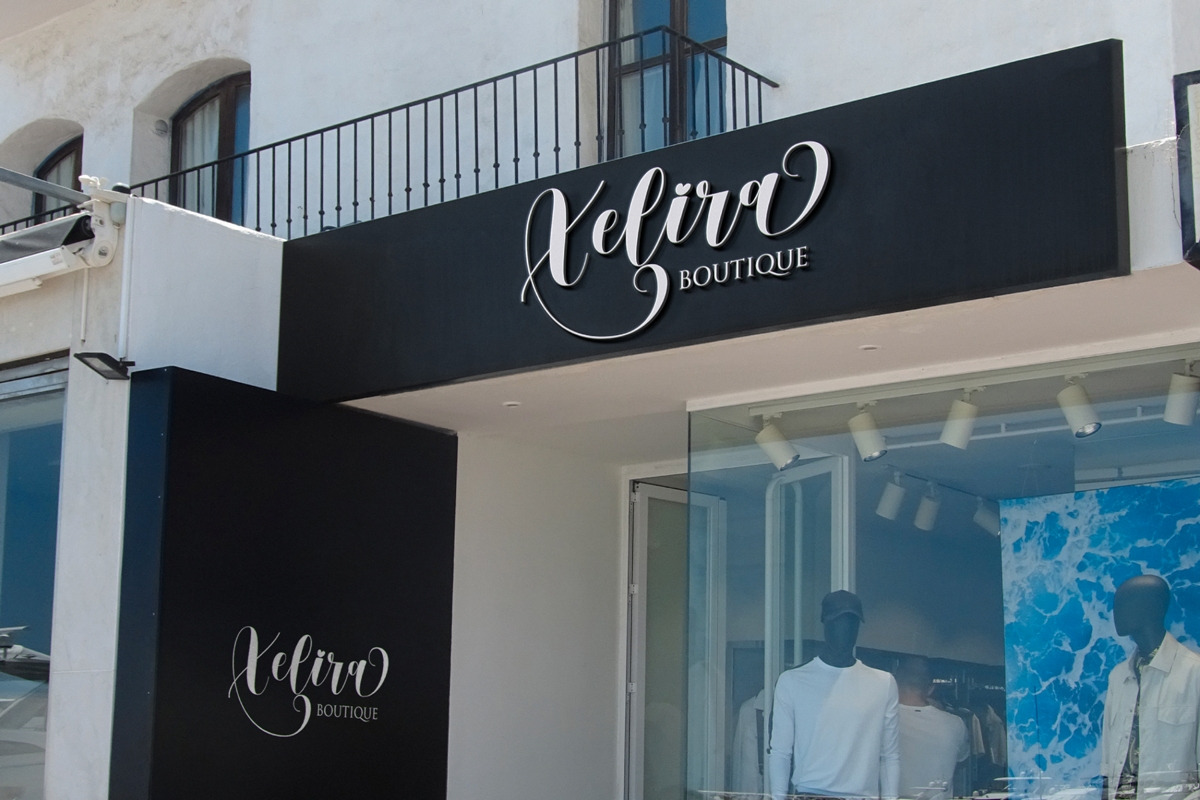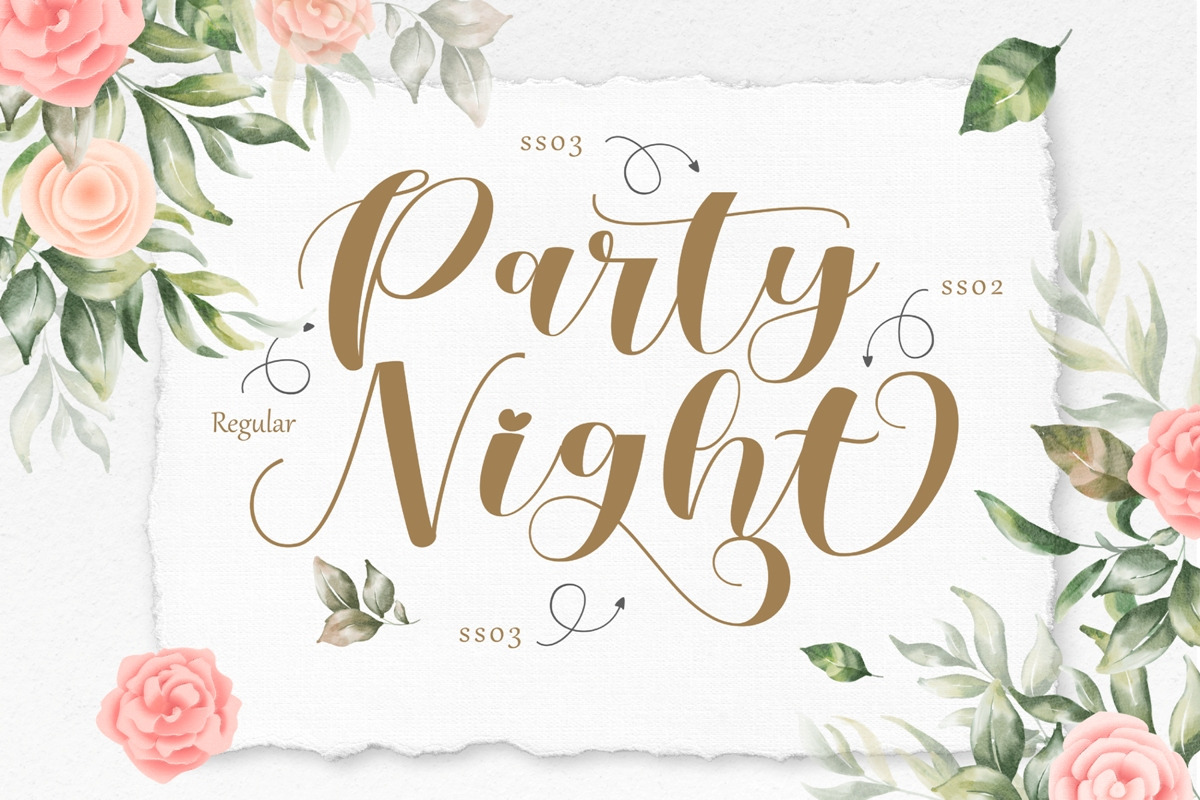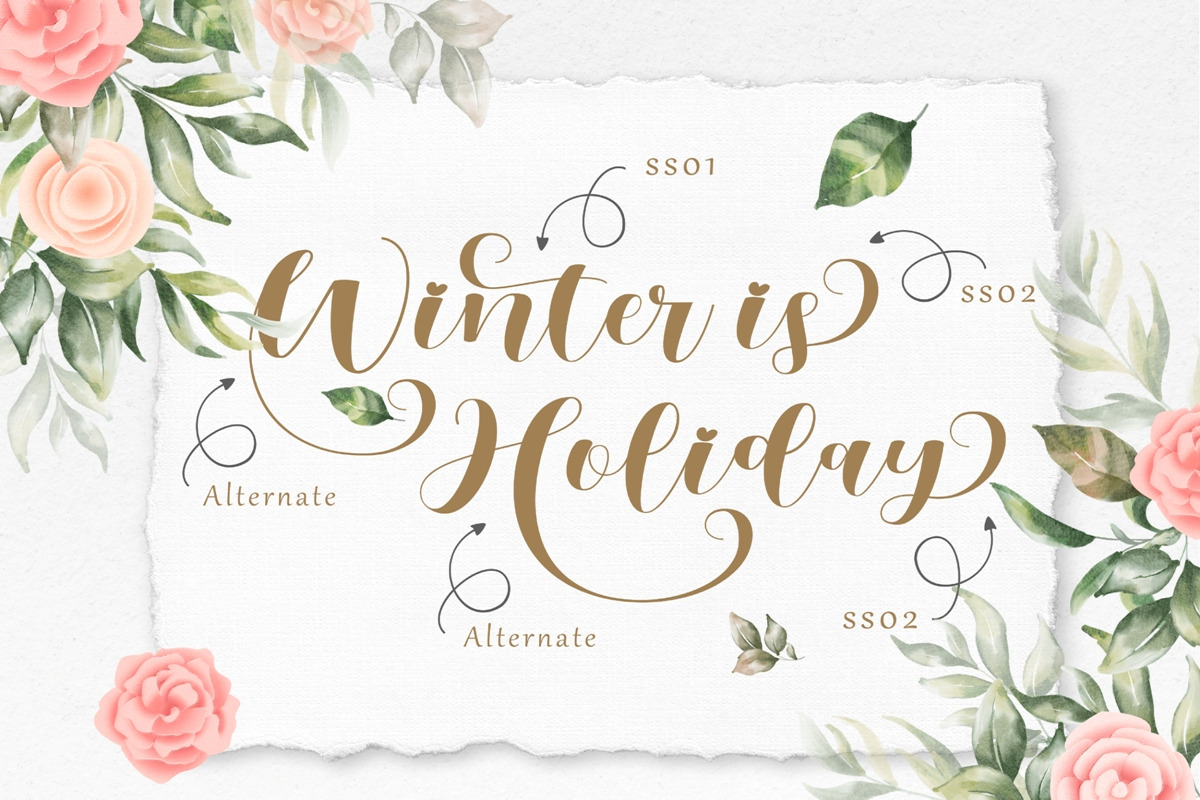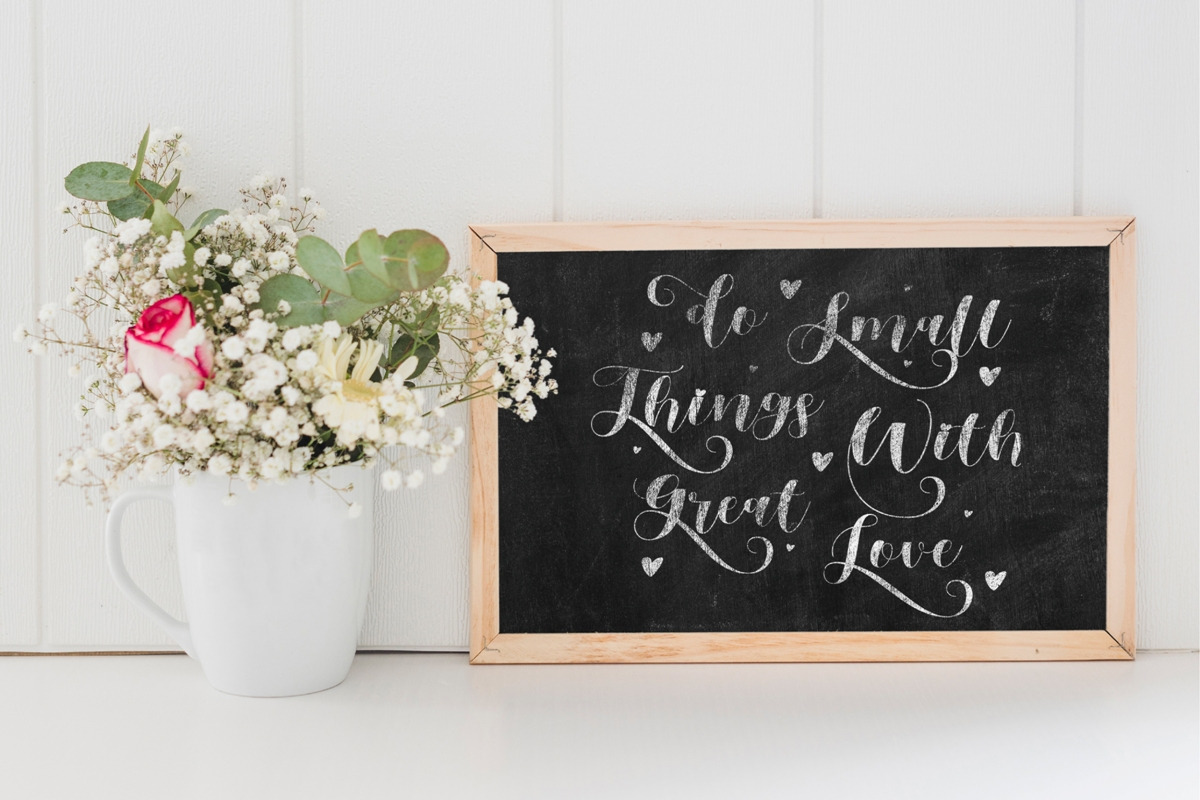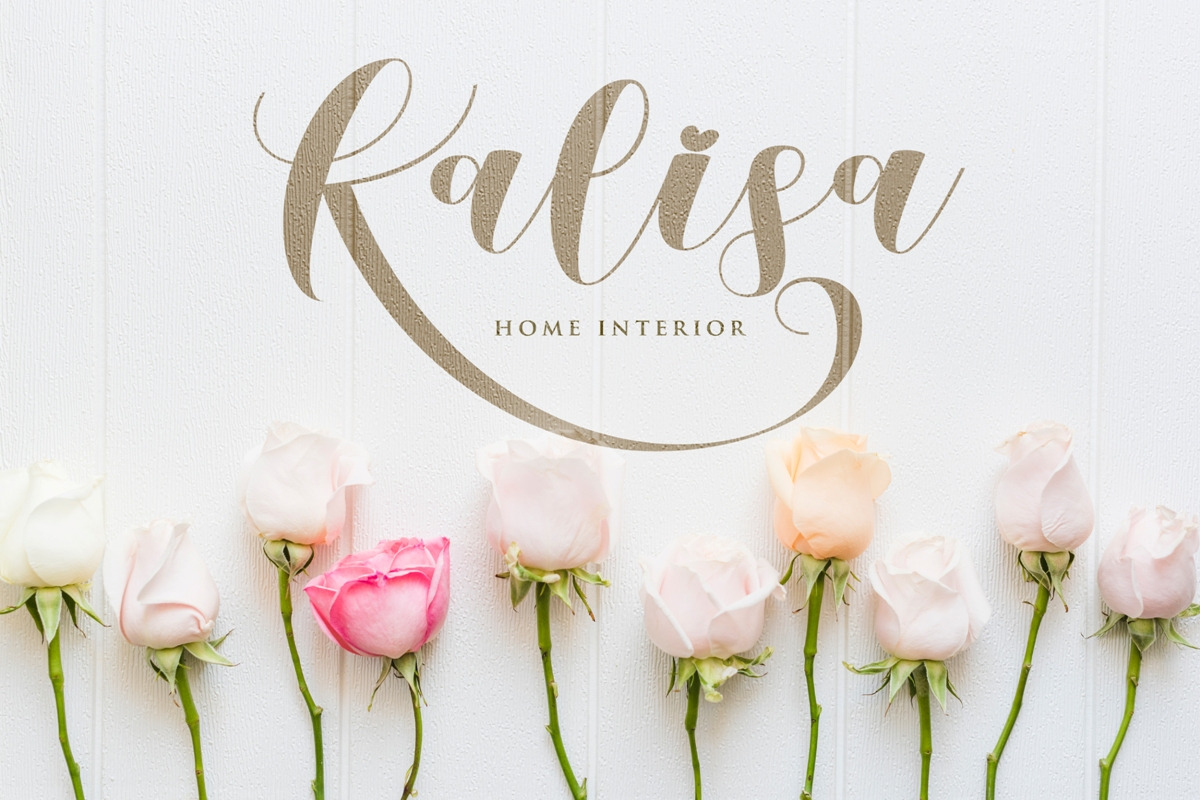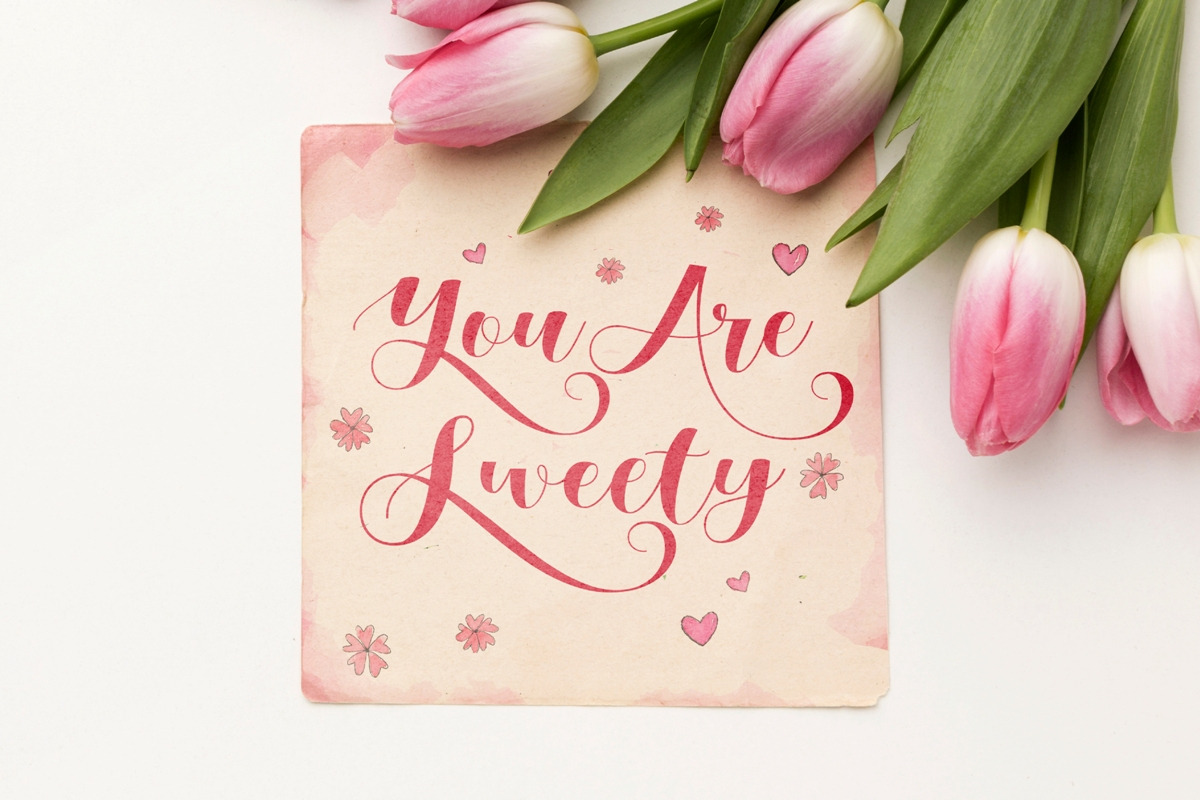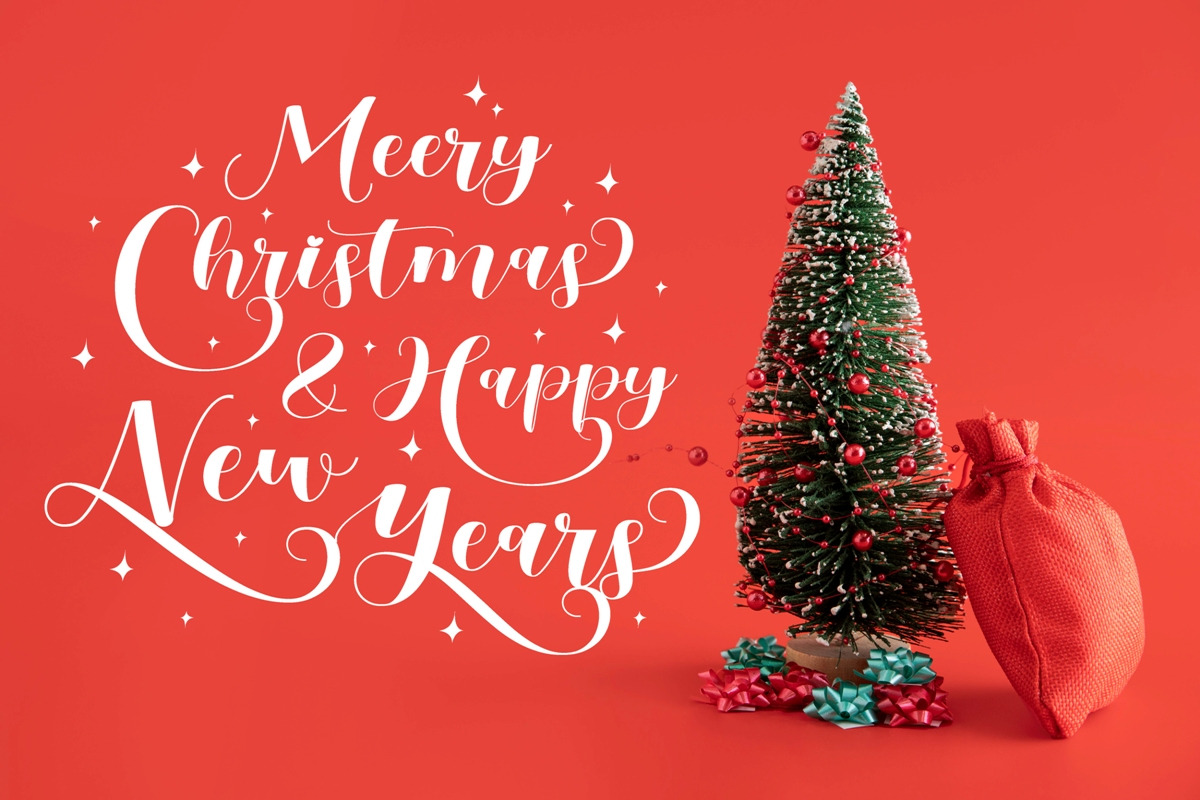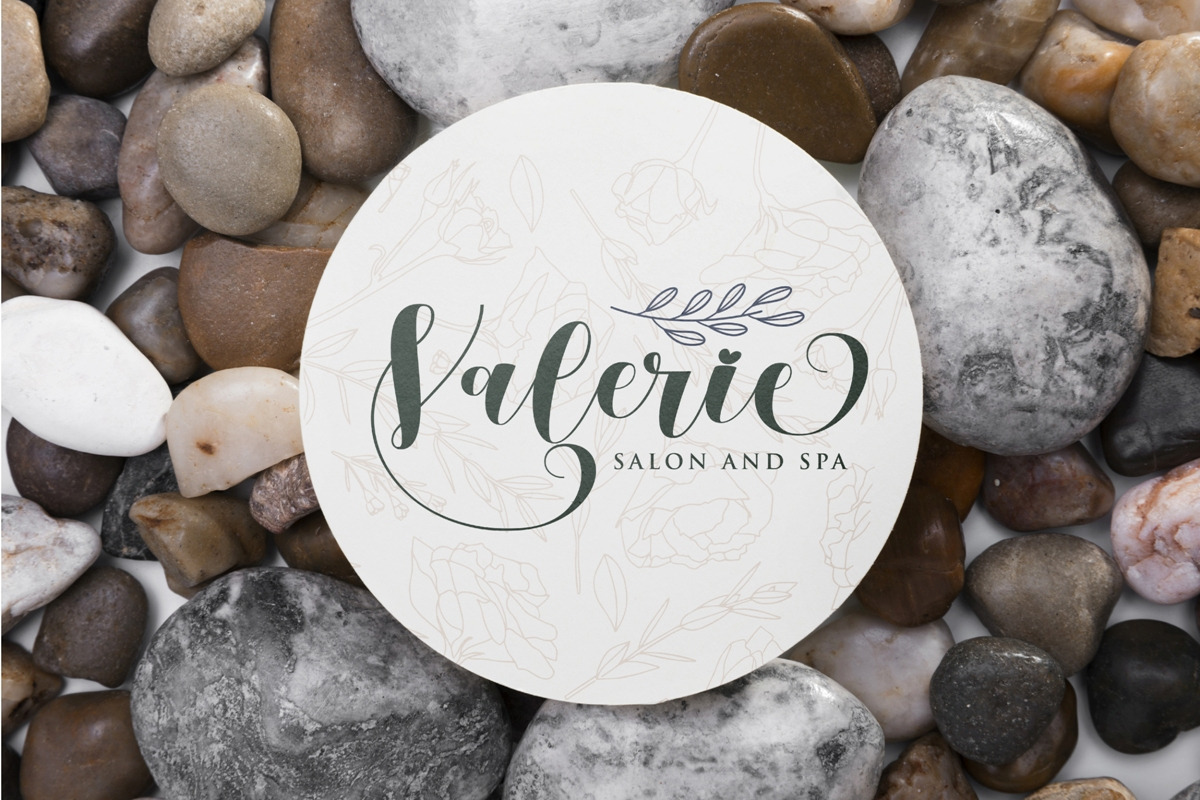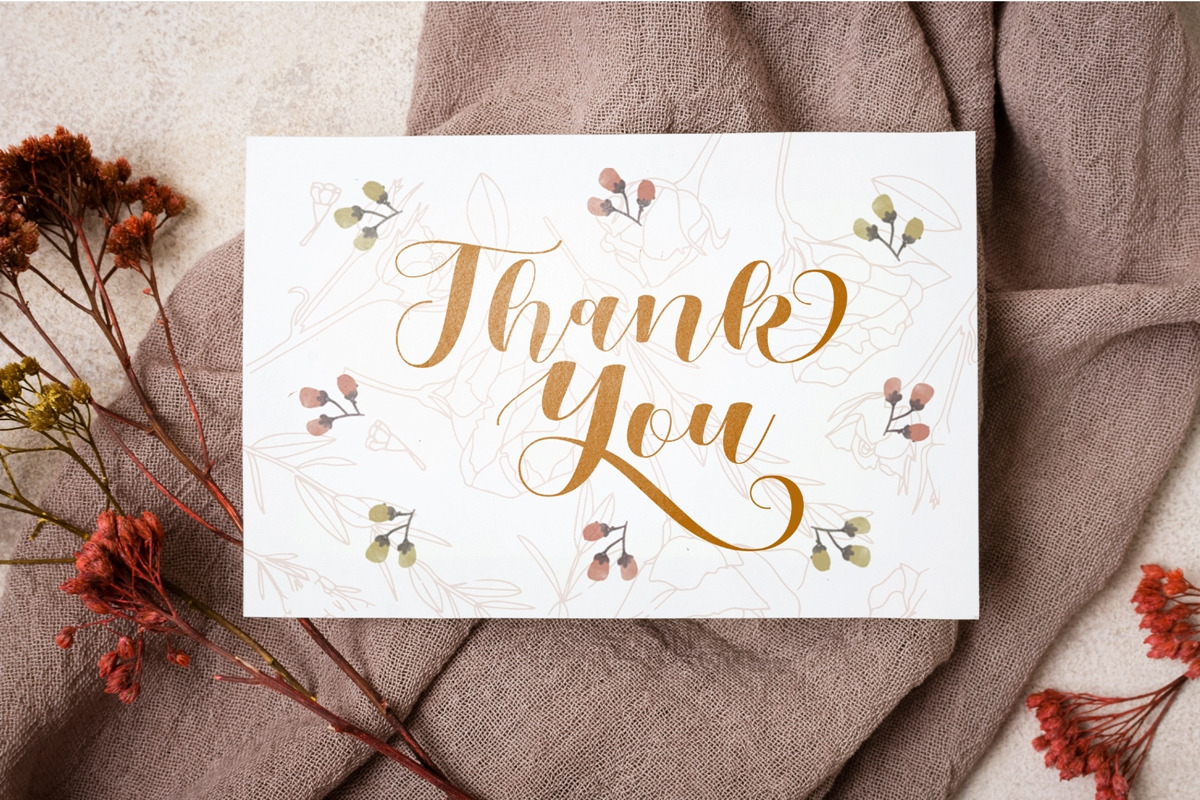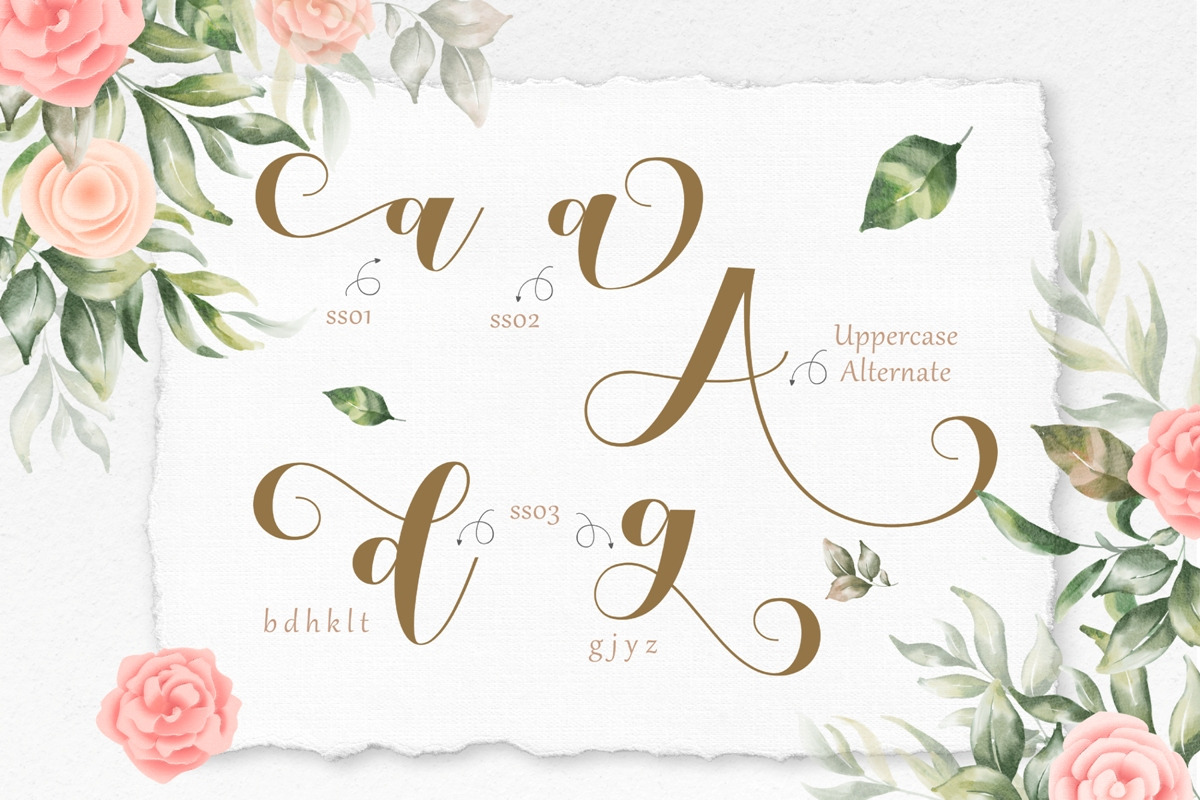
Verali | Lovely Script
Introducing a New Font Verali - is a Lovely Script
This font is a feminine modern handwritten font is made in a modern style with a very beautiful beginning and ending.elegantly,very casual and suitable for your various design needs..
Verali will look outstanding in any context,whether it’s being used on busy backgrounds or as a standalone headline!
beginning and ending swash (ss01-ss03)
beautyful ligature